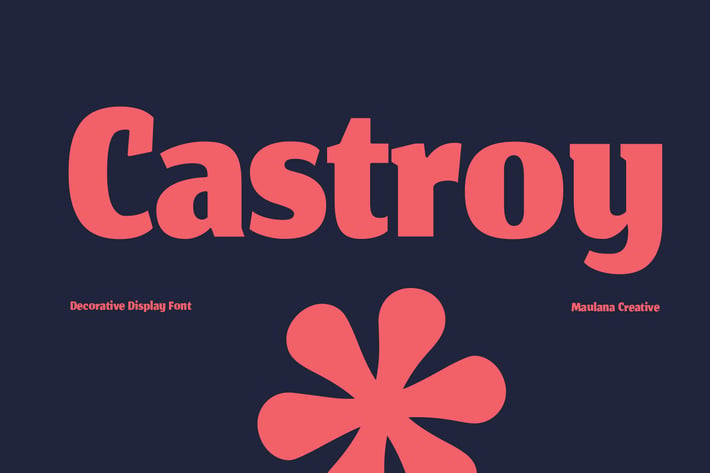
Castroy Decorative Display Font
Castroy is a modern Decorative flared serif Display font. Bold stroke, fun character with a bit of ligatures and alternates. To give you an extra creative work. Castroy font support multilingual more than 100+ language. This font is good for logo design, Social media, Movie Titles, Books Titles, a short text even a long text letter and good for your secondary text font with script or serif. Make a stunning work with Castroy font.